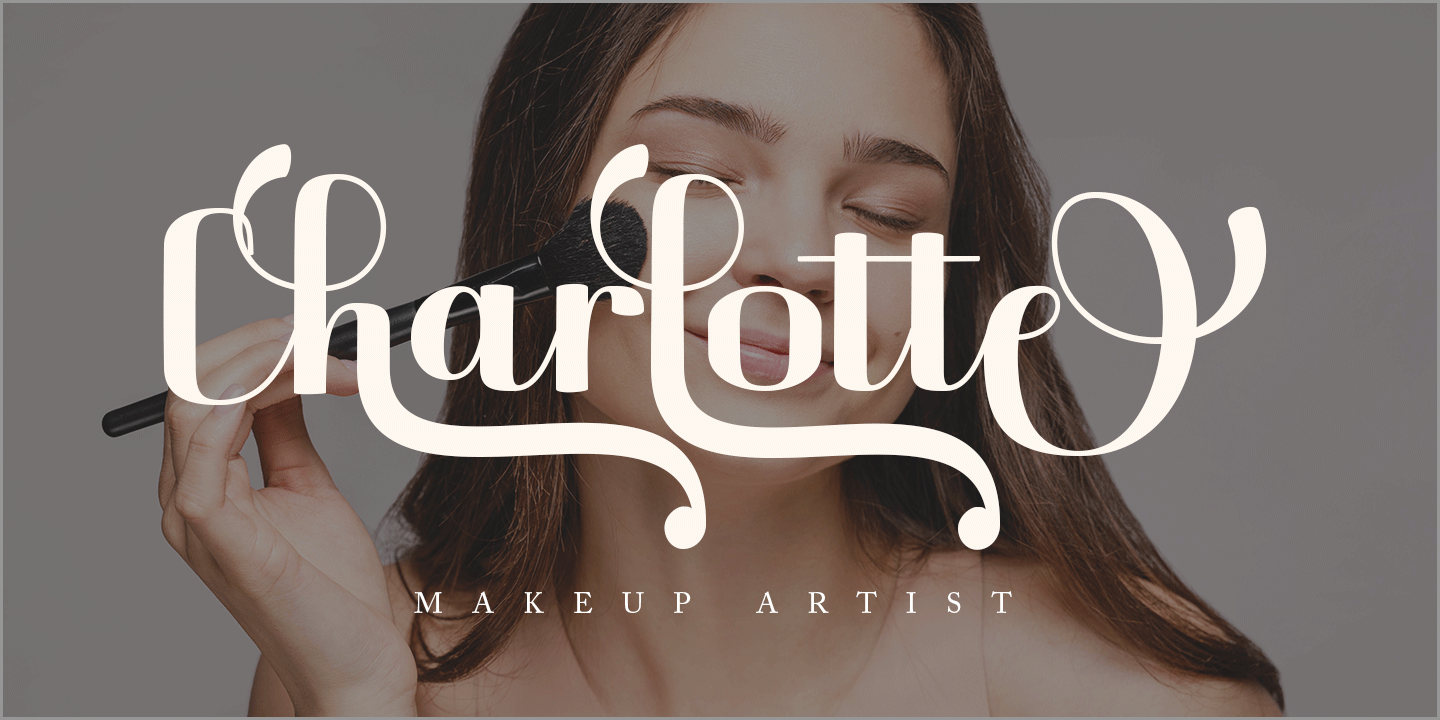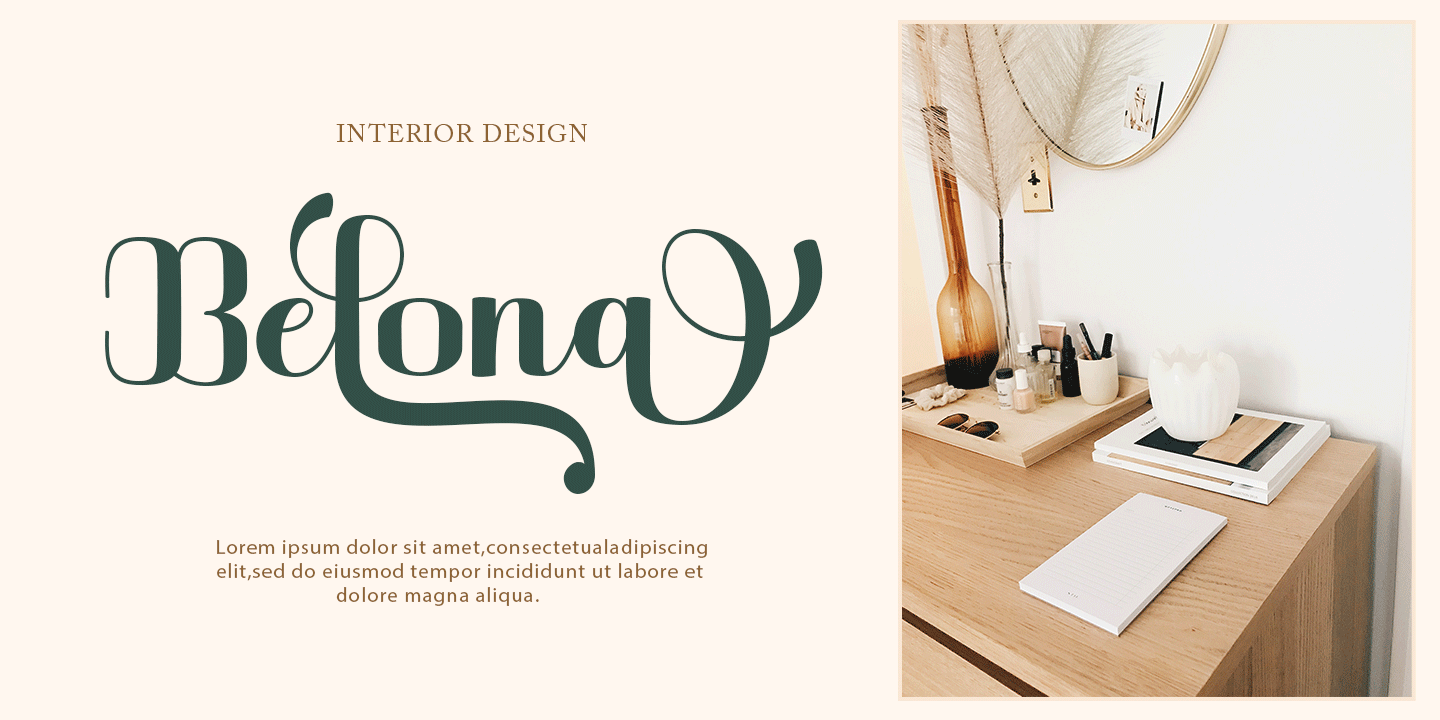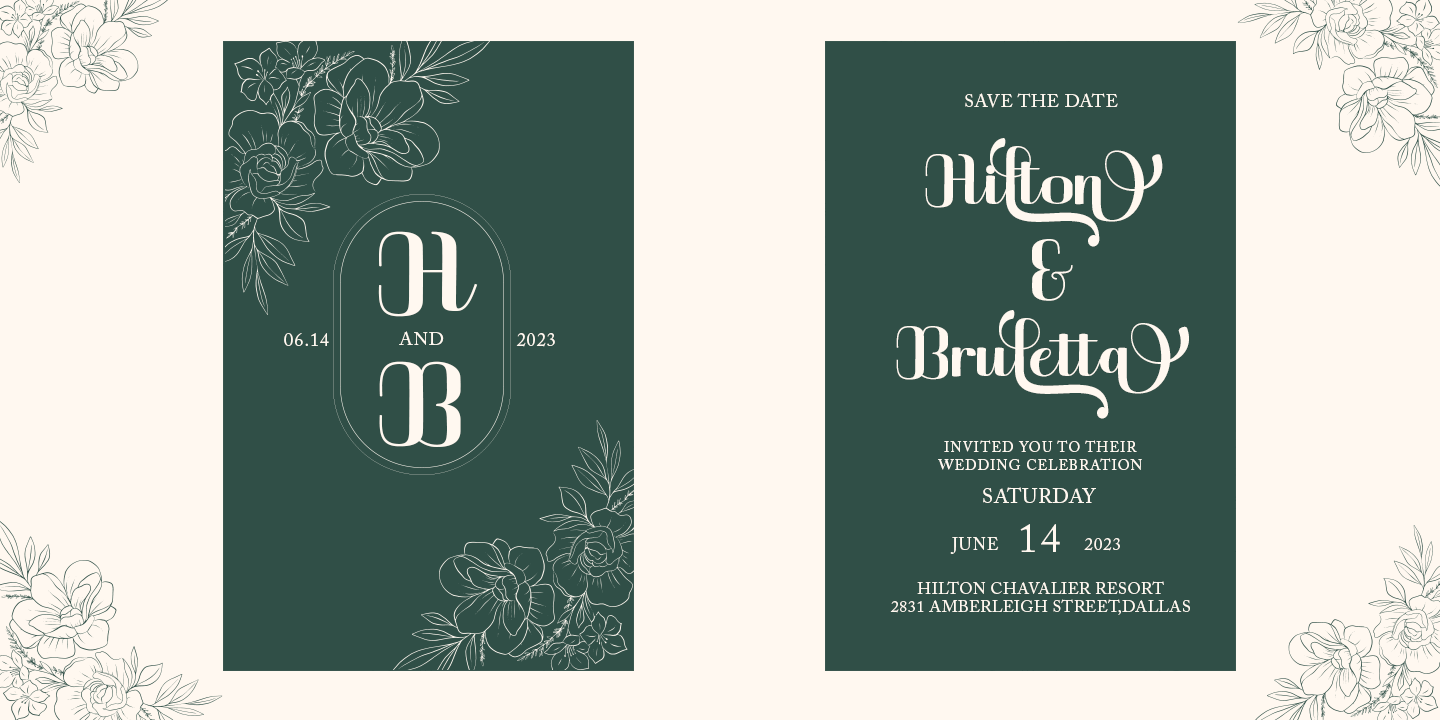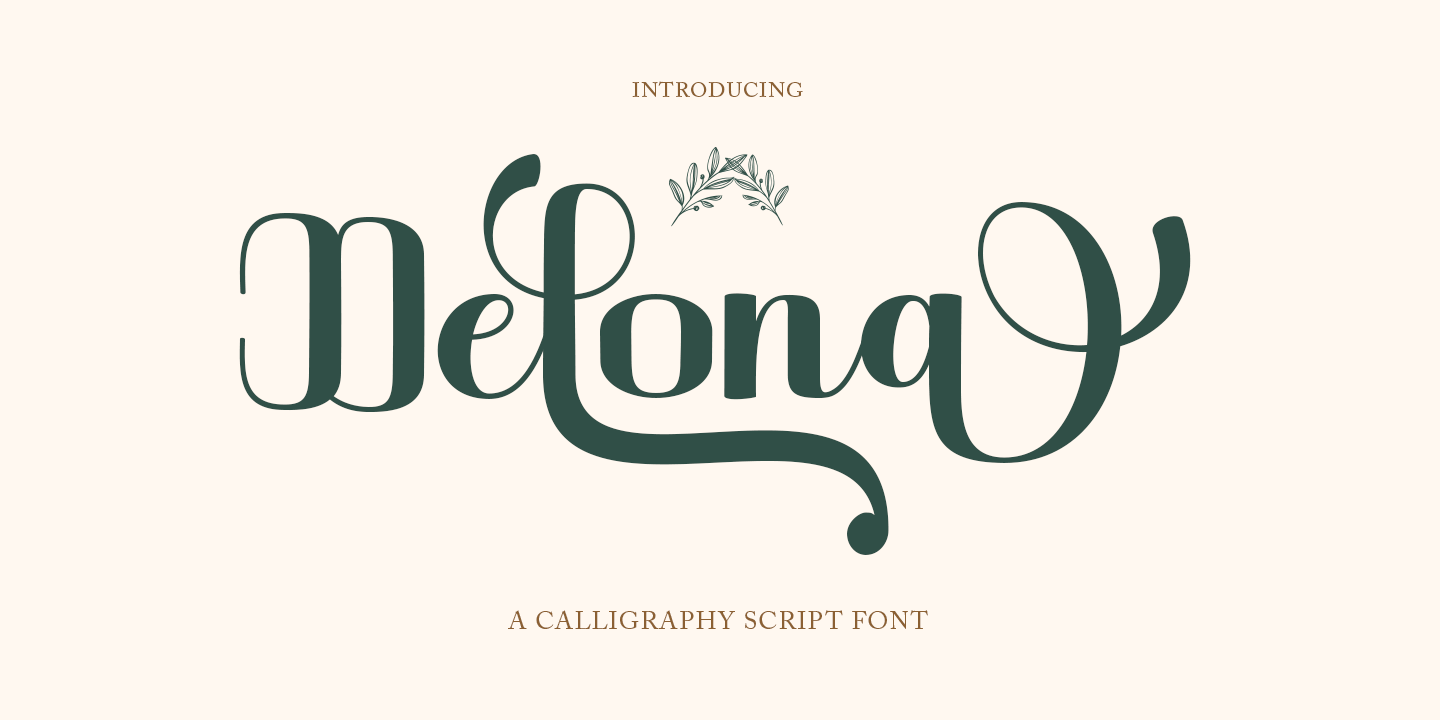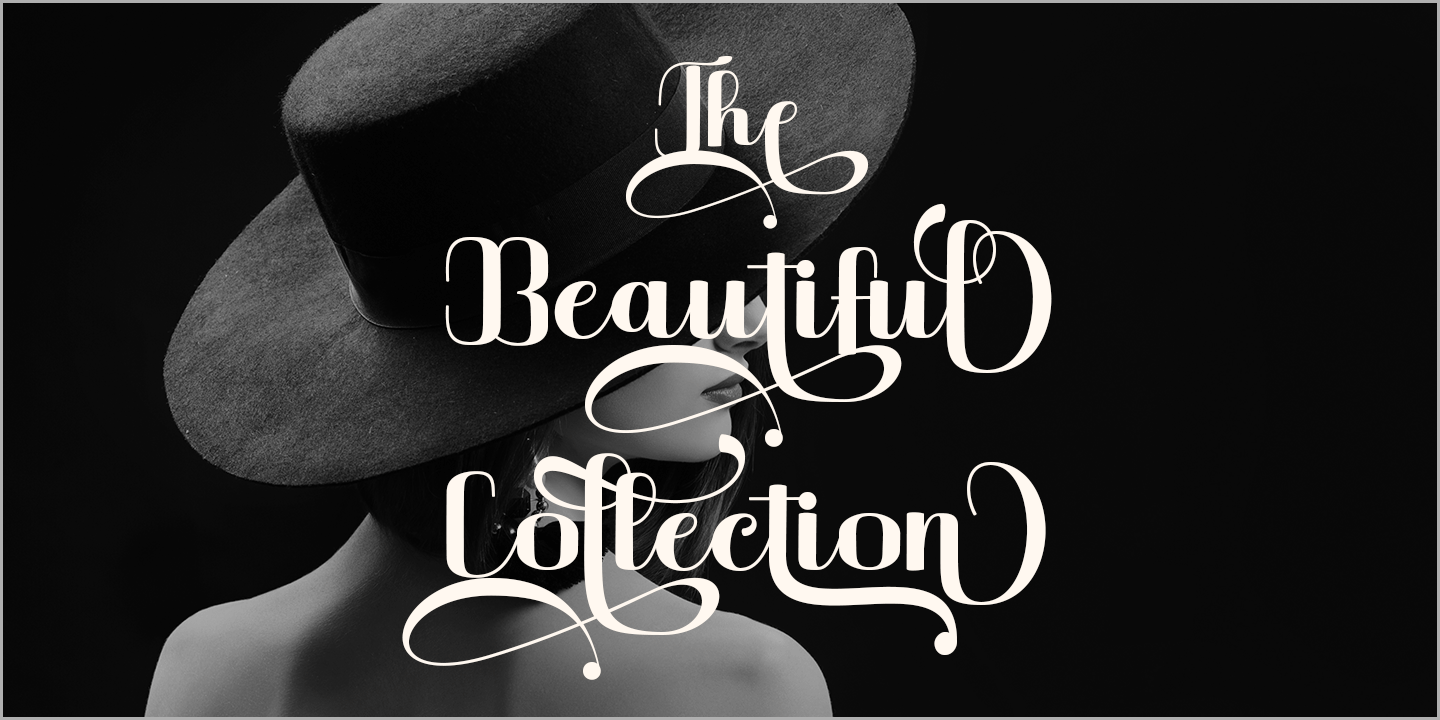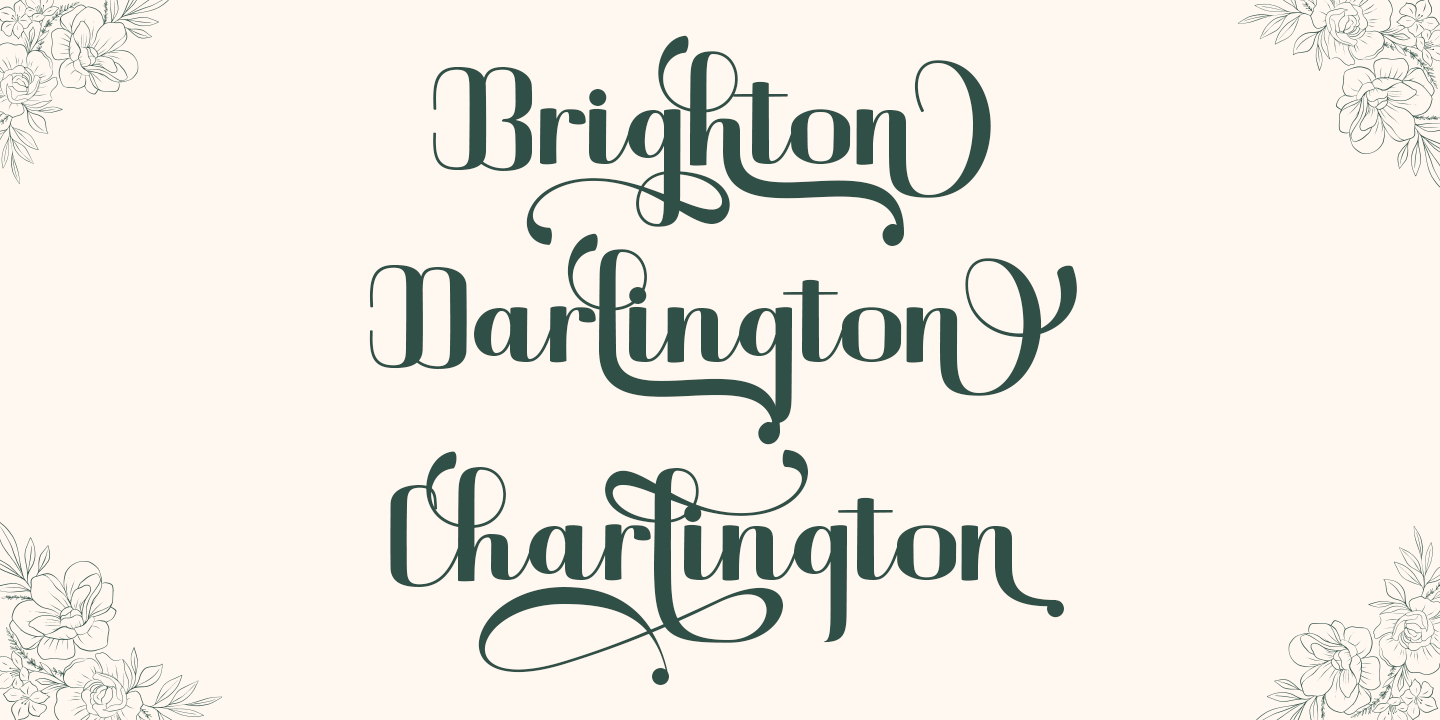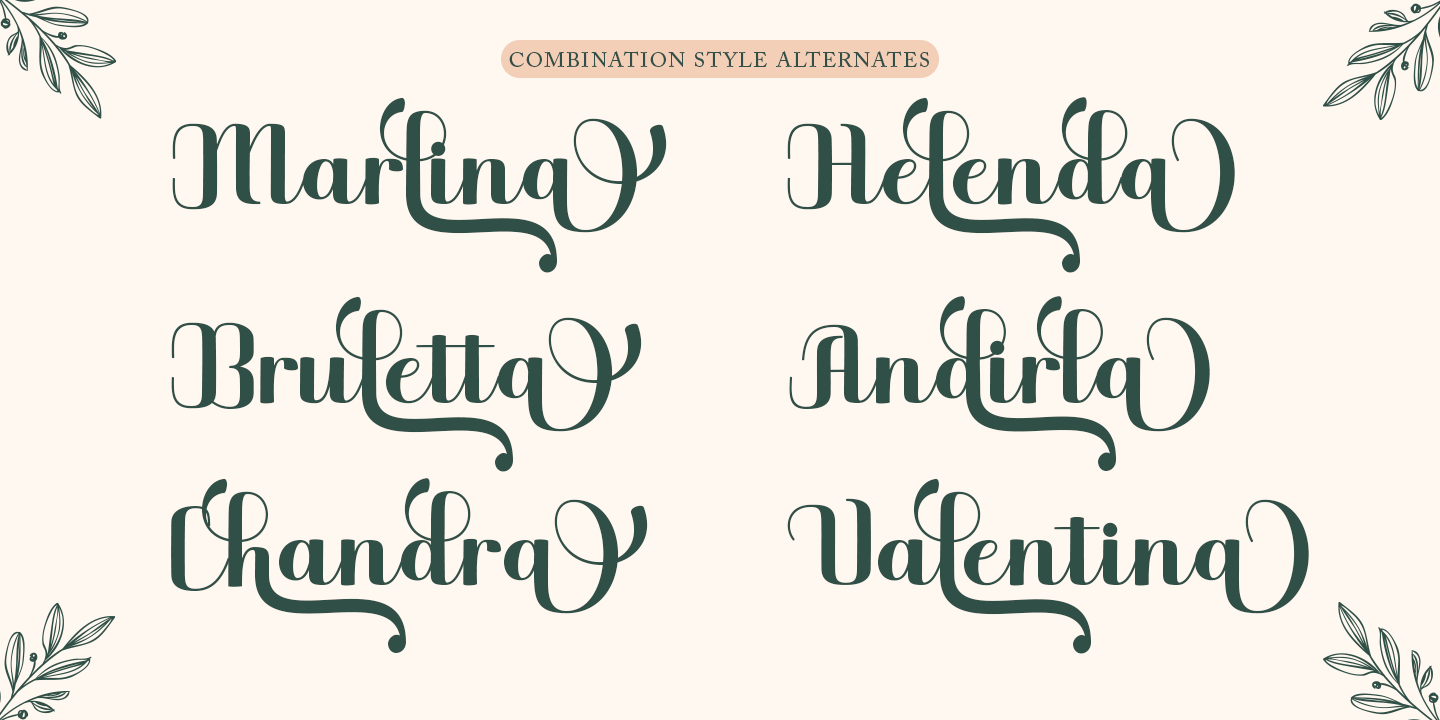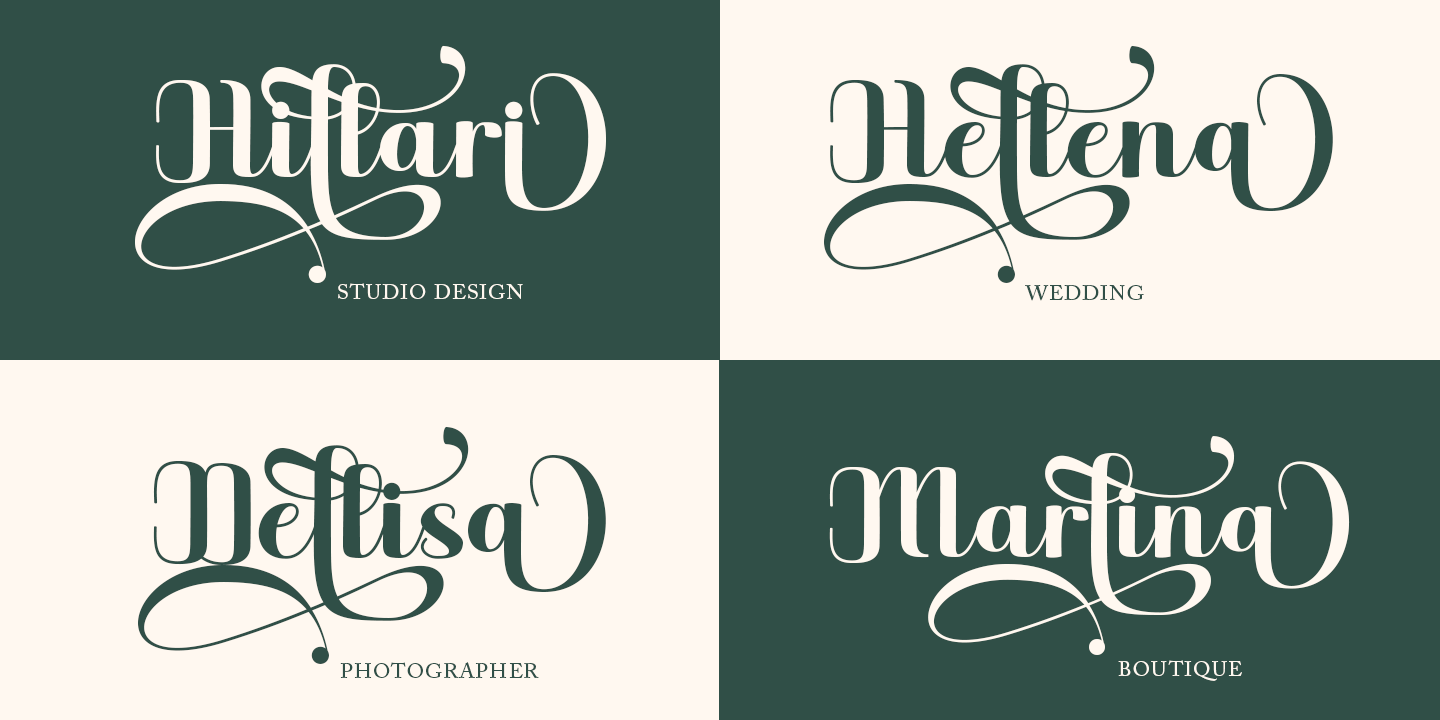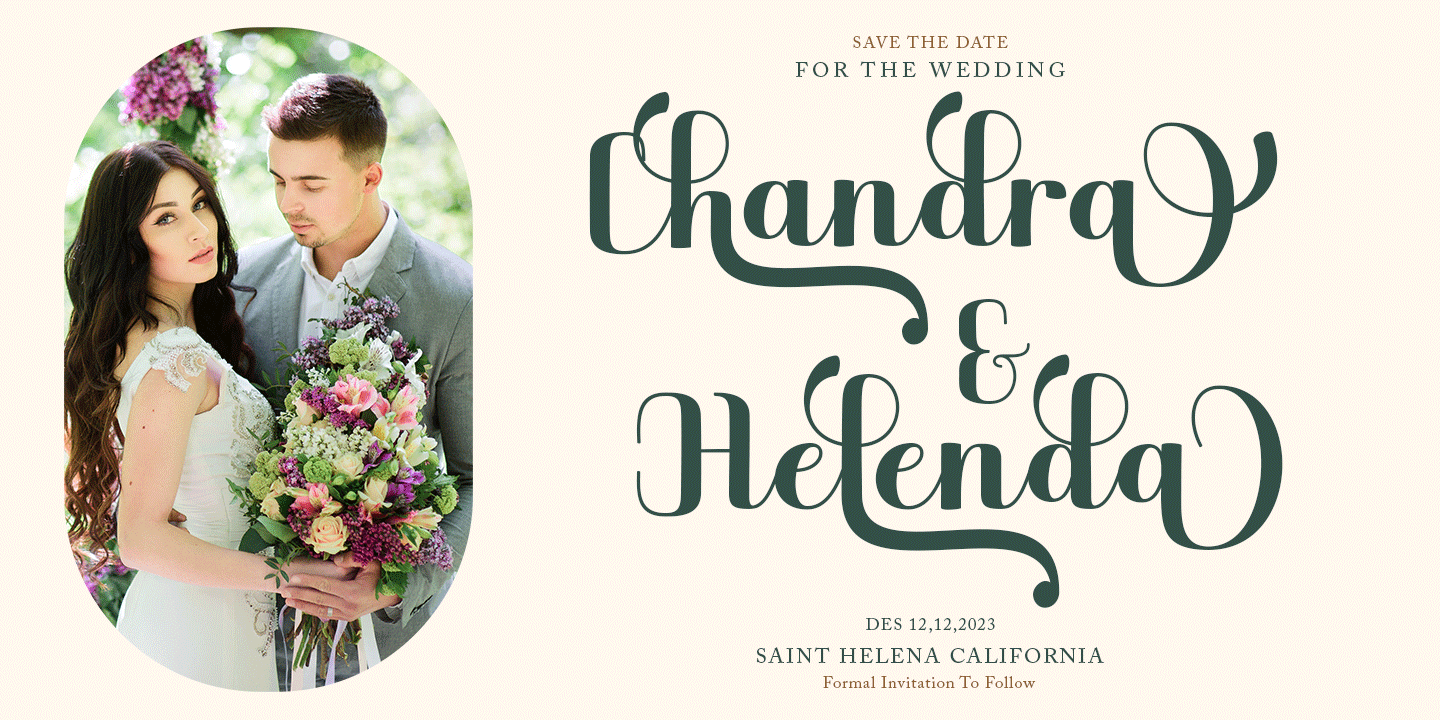
Delona Script
Delona is a classy script. This typeface has a nostalgic feel because of its style, so the font is really suitable for your project with a classic/vintage theme. This font is perfectly made to be applied especially in logos, and the other various formal forms such as invitations, labels, logos, magazines, books, greeting / wedding cards, packaging, fashion, make up, stationery, novels, labels or any type of advertising purposes.
Features :
Uppercase & lowercase
Numbers and punctuations
Alternates & Ligatures
Multilingual